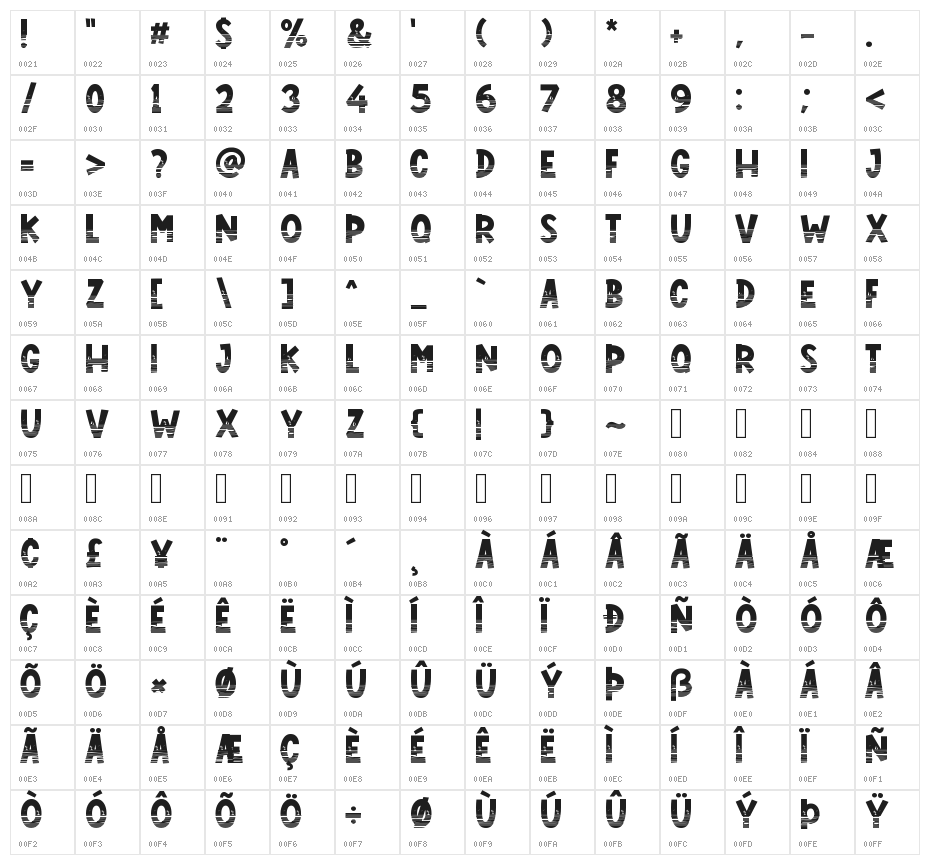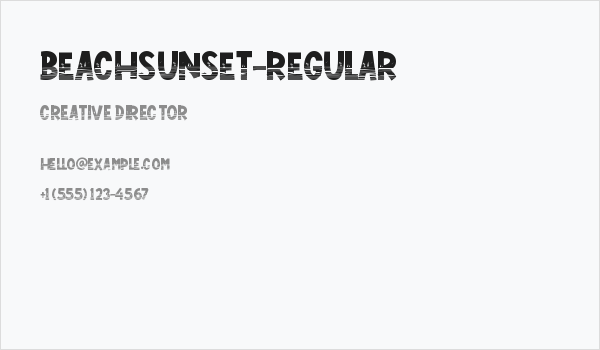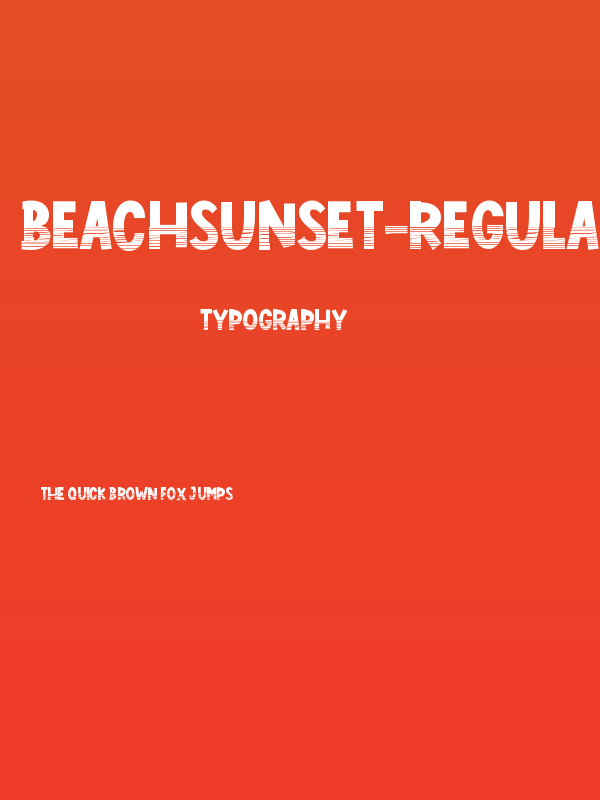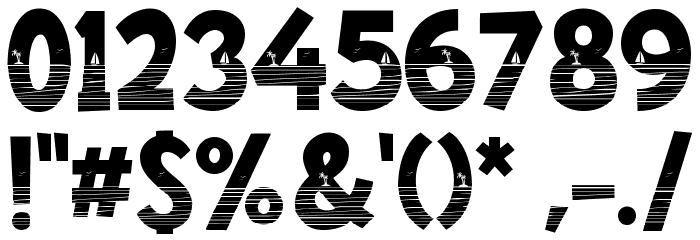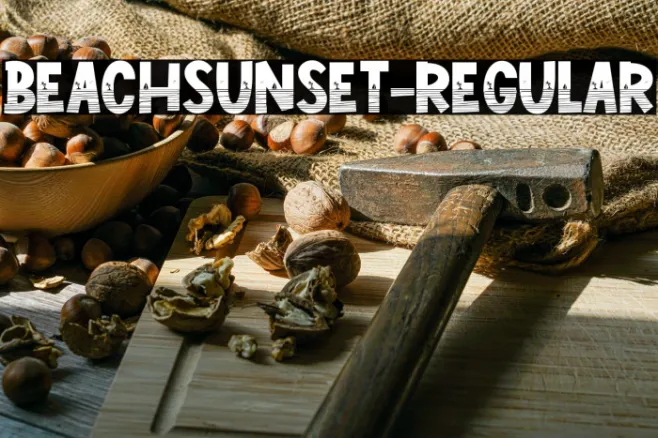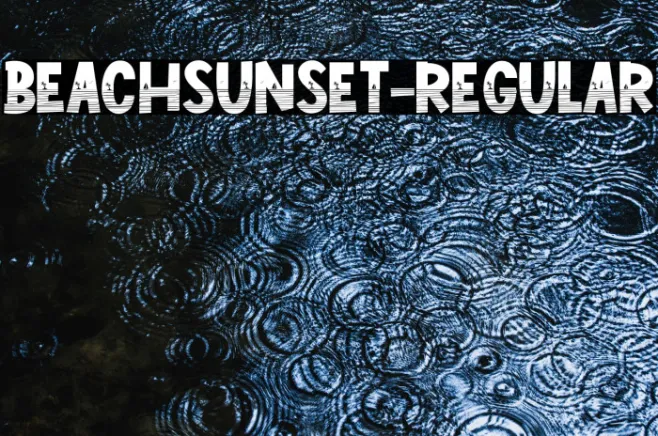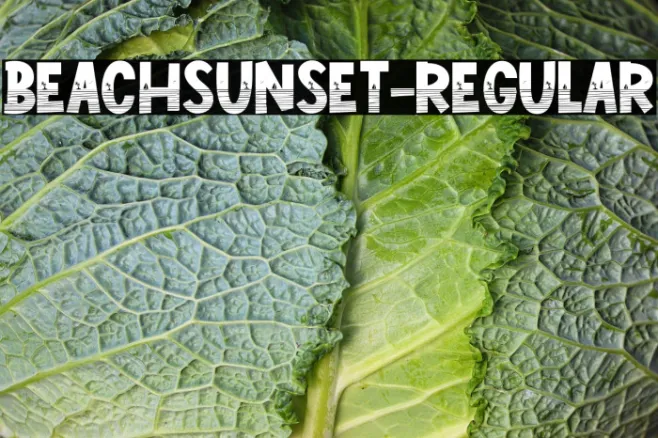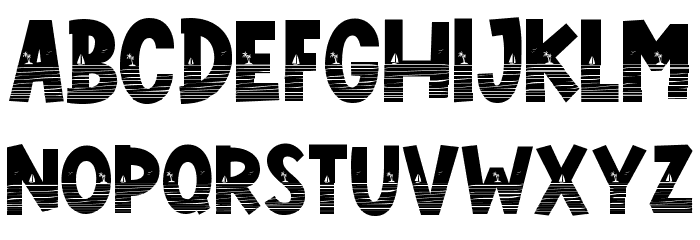
BeachSunset-Regular Font
BeachSunset-Regular Description
This font features a bold and playful design with a unique striped pattern running horizontally through each character, reminiscent of a beach sunset. The uppercase and lowercase letters are consistent in style, with a slightly condensed form that adds to its distinctive appearance. The numbers and special characters maintain the same thematic design, ensuring uniformity across all elements. The font's decorative nature makes it ideal for projects that require a fun and eye-catching aesthetic.
| Proposed Projects | Ideal for beach-themed event posters, summer party invitations, and playful branding projects. |